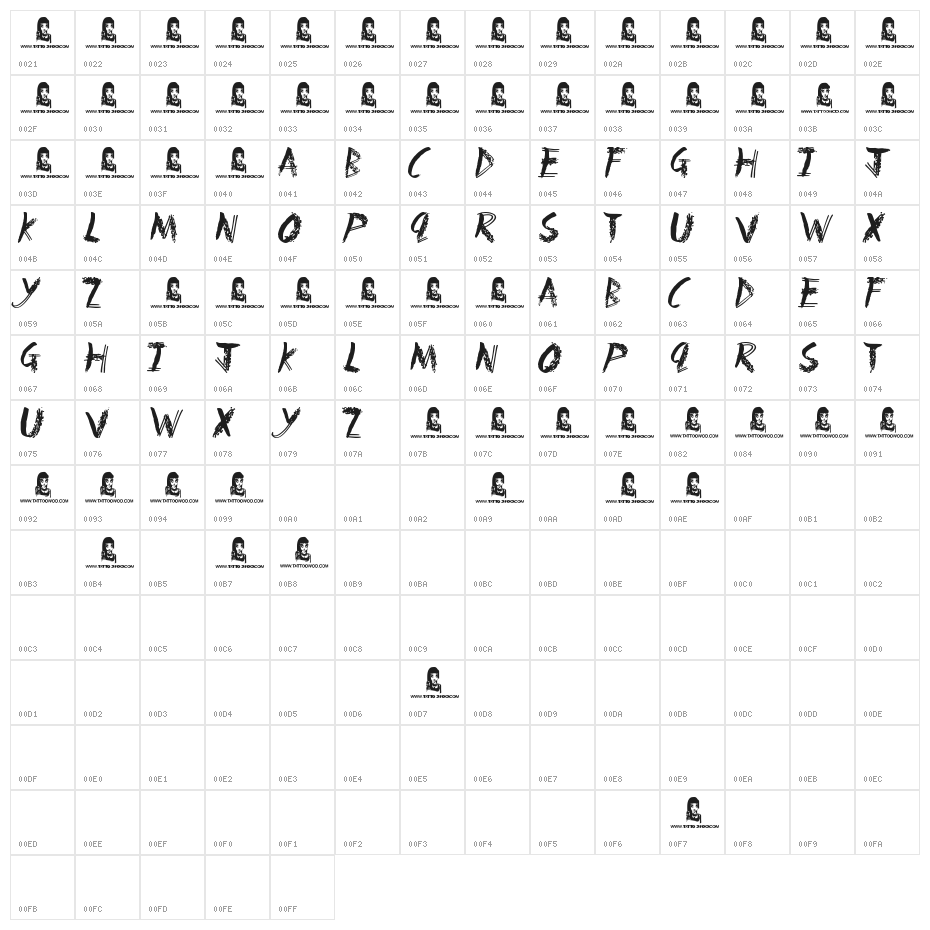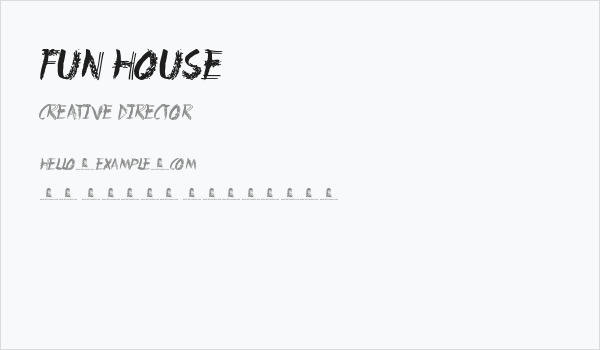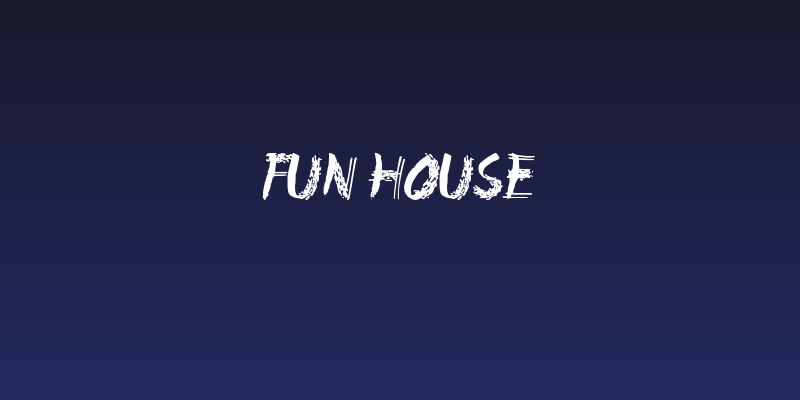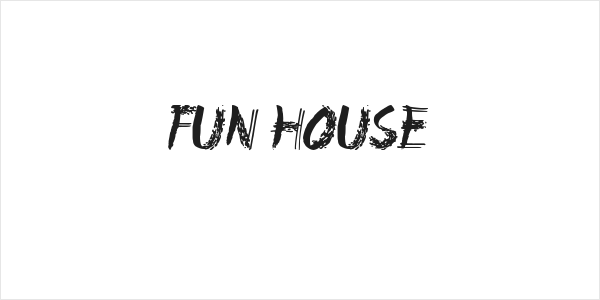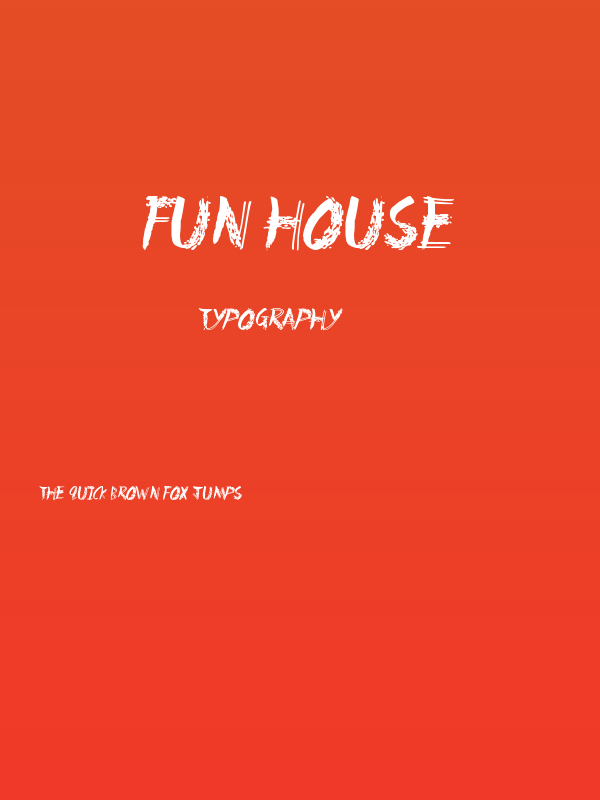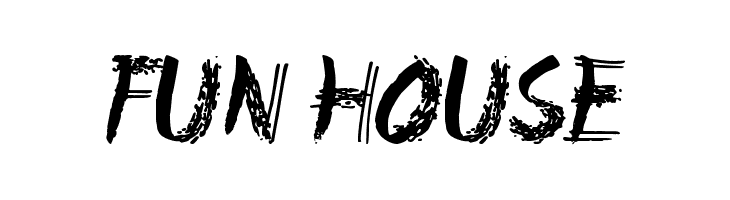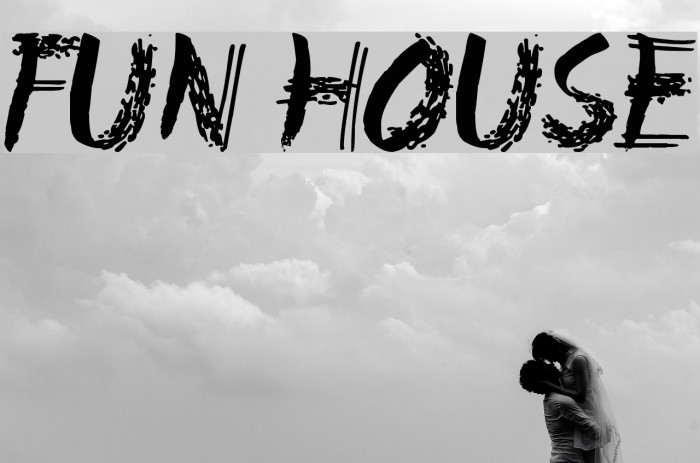
Fun House Font
Fun House Description
This font features a bold, expressive style with a distressed, grunge-like appearance. Each character is uniquely crafted with irregular edges and a brush-like texture, giving it a dynamic and energetic feel. The uppercase letters are particularly striking, with varying stroke widths that add to the chaotic yet artistic vibe. The font's design is reminiscent of street art or graffiti, making it ideal for projects that require a bold statement. Its rough and edgy look is perfect for capturing attention and conveying a sense of rebellion or creativity.
| Overall Style | Modern, Grunge |
| Proposed Projects | Ideal for album covers, posters, urban-themed designs, and any project needing a bold, artistic touch. |